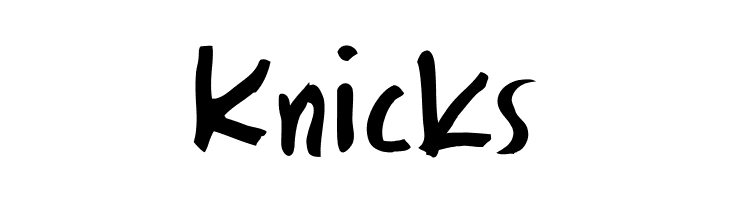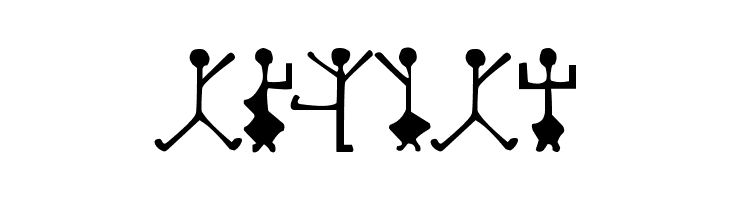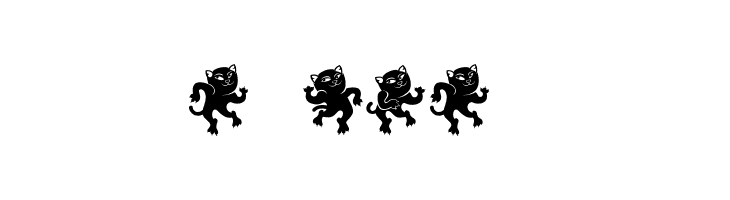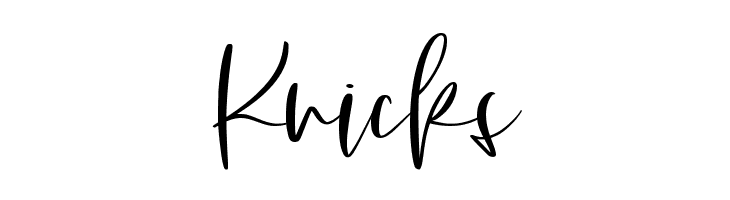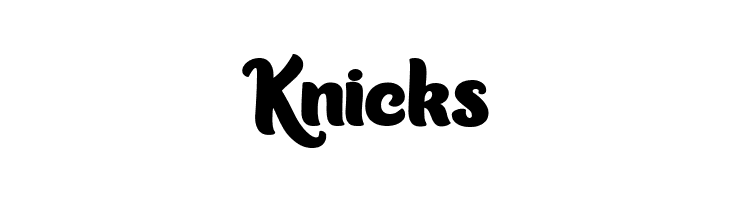
A playful, hand-drawn font with a whimsical and informal style.
Hand-drawn Halloween doodle font with cute, playful icons.
A playful, bold, and cartoonish font with decorative elements.
Playful handwritten font with tall, narrow characters.
A playful, hand-drawn font with rounded edges and consistent stroke width.
A playful, bold italic font with rounded characters and medium contrast.
A playful and whimsical script font with flowing, cursive letterforms.
A playful and romantic script font with elegant curves and whimsical swirls.
A playful, heart-adorned font perfect for romantic or whimsical designs.
A playful, bold font with heart-shaped accents and rounded characters.
A bold, playful font with a hand-drawn, cartoonish style.
A playful, handwritten font with bold, irregular strokes and a whimsical charm.
A playful handwritten font with a whimsical and creative style.
A bold, playful font with rounded, cartoonish letters.
A playful, hand-drawn font with characters in irregular squares, perfect for fun and creative projects.
A playful, italicized font with a notebook page background, ideal for creative and informal projects.
A playful, handwritten font with bold, smooth strokes and a whimsical style.
A playful, bold font with a whimsical, hand-drawn style.
A playful, rounded font with a whimsical and friendly style.
A playful, hand-drawn script font with whimsical decorative elements.
A playful, handwritten font with a friendly and whimsical style.
A playful, snowflake-adorned font perfect for festive and cheerful designs.
A playful, whimsical script font with a handwritten, cursive style.
A playful, handwritten font with bold, rounded characters.
A playful, hand-drawn font with a whimsical and informal style.
A playful handwritten font with a smooth, casual style.
A playful, handwritten font with a whimsical and casual style.
A playful, handwritten font with a whimsical and friendly style.
Decorative font with face illustrations.
A playful, hand-drawn font with a fluffy, whimsical style.
A playful, bold, and rounded font with a hand-drawn feel.
A playful handwritten font with a casual and friendly appearance.
A playful, handwritten font with bold, rounded strokes and a dynamic slant.